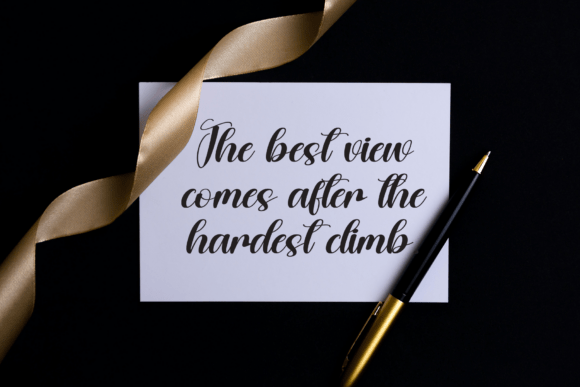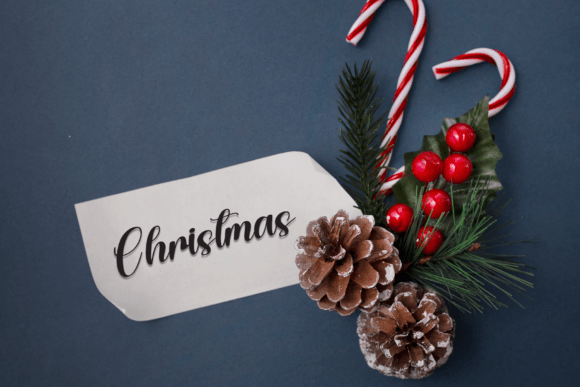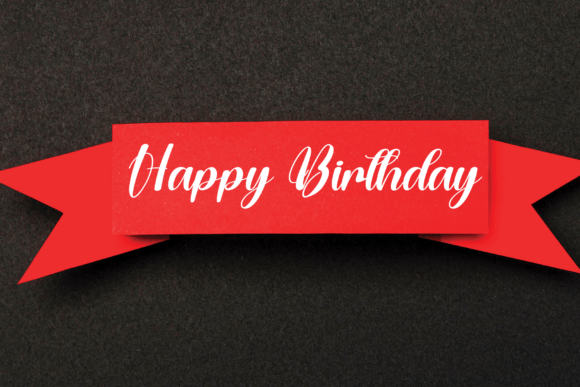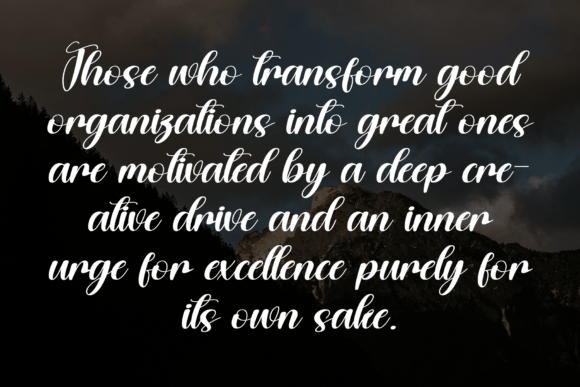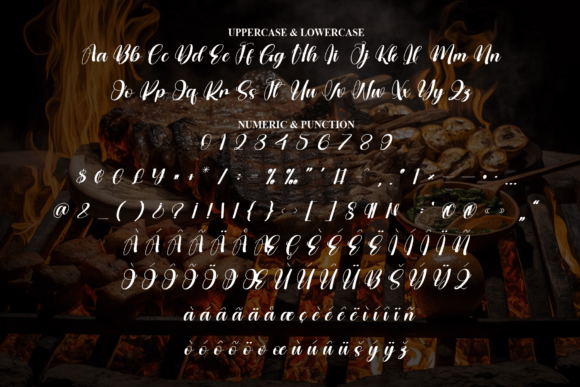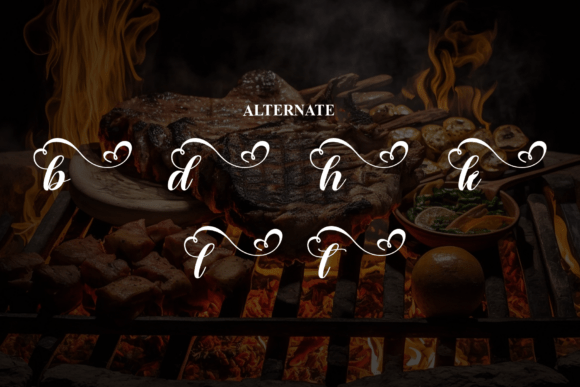
Introducing Barbeque Font: Elevate Your Designs with Elegance and Sophistication
In the world of typography, a font can make or break a design. For designers and crafters looking to add a touch of elegance and contemporary charm to their projects, Barbeque Font is an exceptional choice. This stylish script font is designed to capture the beauty of hand-drawn calligraphy with a modern twist, making it perfect for a wide range of applications.
The Unique Characteristics of Barbeque Font
Barbeque Font boasts graceful strokes, fluid curves, and carefully crafted letterforms that set it apart from other fonts. Its unique characteristics include:
- Graceful Strokes: The font features smooth, flowing strokes that give it a natural and organic feel.
- Fluid Curves: The curves in Barbeque Font are meticulously designed to create a sense of fluidity and movement.
- Carefully Crafted Letterforms: Each letterform is carefully crafted to ensure that the font is both aesthetically pleasing and highly legible.
Barbeque Font is incredibly versatile and can be used for a wide range of design projects, including:
- Logos: Add a touch of sophistication and elegance to your logo with Barbeque Font.
- Invitations: Create beautiful and refined invitations for special occasions, such as weddings, parties, and corporate events.
- Packaging: Elevate your product packaging with a font that exudes luxury and refinement.
- Social Media Graphics: Add a touch of elegance to your social media graphics, including Facebook posts, Instagram stories, and Twitter headers.
The Benefits of Using Barbeque Font
By incorporating Barbeque Font into your designs, you can enjoy a range of benefits, including:
- Refined and Sophisticated Look: Barbeque Font adds a touch of elegance and sophistication to any design.
- Versatility: The font is highly versatile and can be used for a wide range of design projects.
- Visual Appeal: The font’s natural flow and polished details make it visually appealing and engaging.
Tips for Using Barbeque Font Effectively
To get the most out of Barbeque Font, follow these tips:
- Use it Sparingly: Use Barbeque Font sparingly to create emphasis and add a touch of elegance to your design.
- Pair it with Other Fonts: Pair Barbeque Font with other fonts to create a unique and visually appealing combination.
In conclusion, Barbeque Font is an exceptional choice for designers and crafters looking to add a touch of elegance and sophistication to their designs. With its unique characteristics, versatility, and visual appeal, it’s perfect for a wide range of design projects. By following the tips outlined above, you can use Barbeque Font effectively and create stunning designs that leave a lasting impression.